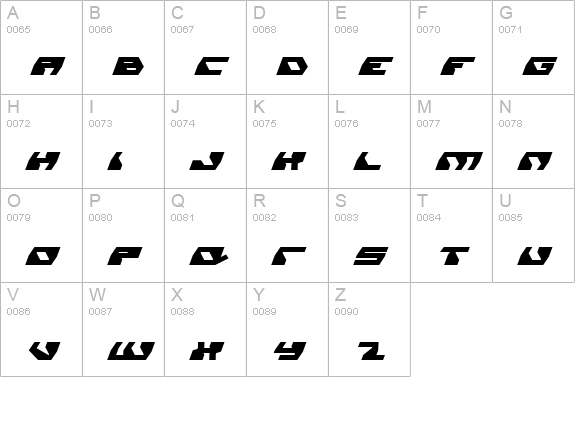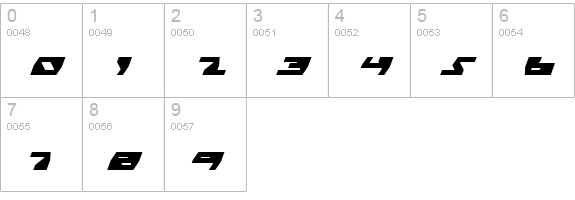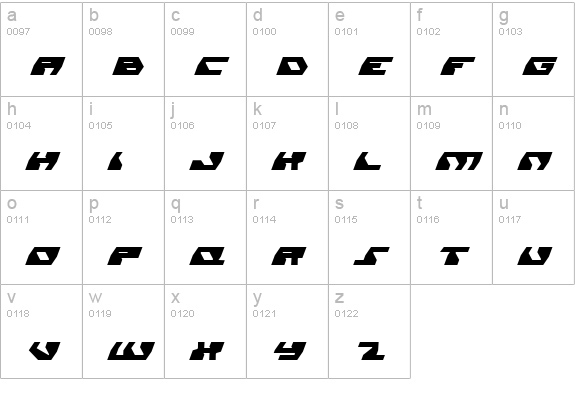
Daedalus Italic is a distinctive, italic variant in the Daedalus typeface family \xE2\x80\x94 well suited to design and typography projects.
Daedalus Italic font is a stunning and elegant typeface that exudes sophistication and style. Its sleek and graceful design makes it perfect for adding a touch of refinement to any project. The italicized characters of Daedalus Italic font flow effortlessly, creating a sense of movement and fluidity. What sets Daedalus Italic font apart is not just its beauty, but also its accessibility. This exquisite font is available for free download at FontsMarket.com, making it easily accessible to designers and creatives looking to elevate their work with a touch of elegance. Don't miss out on the opportunity to enhance your projects with the timeless charm of Daedalus Italic font – download it today and let your creativity soar.